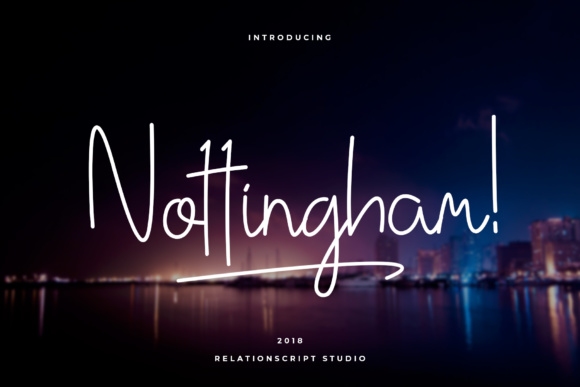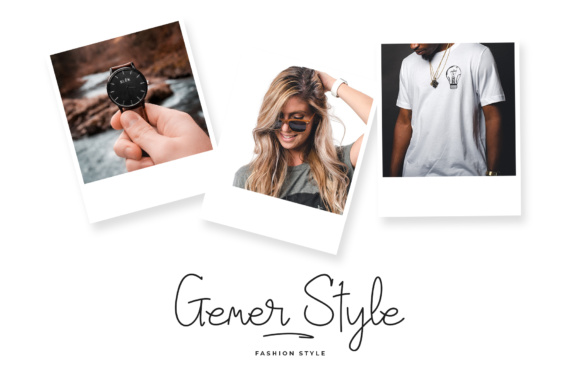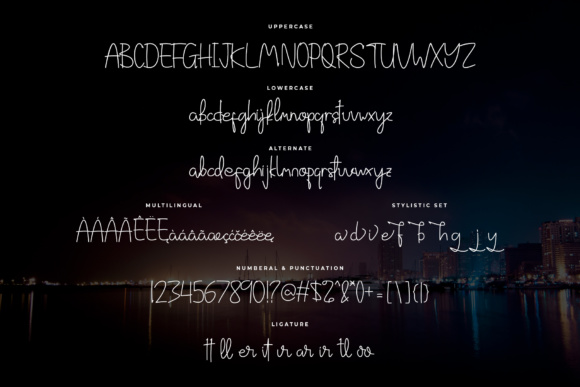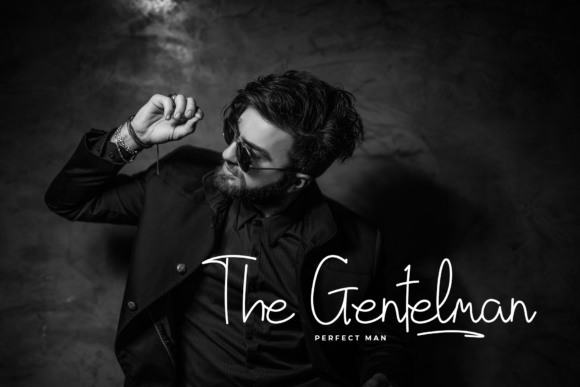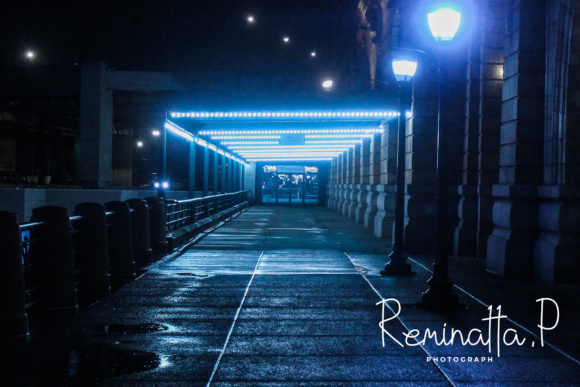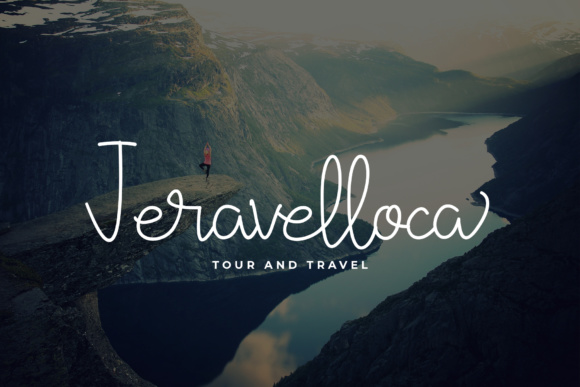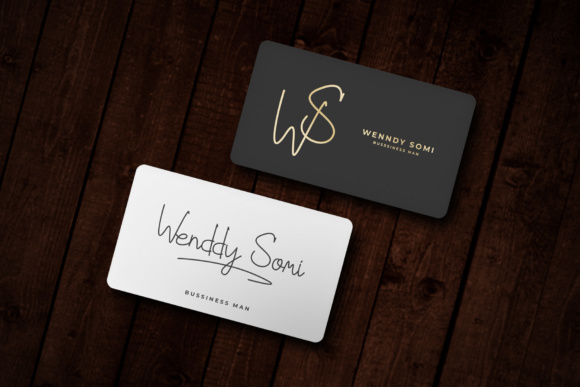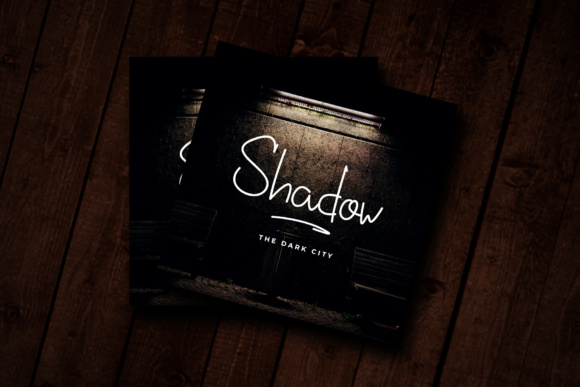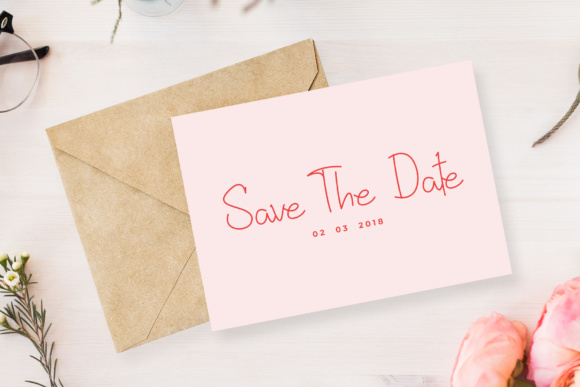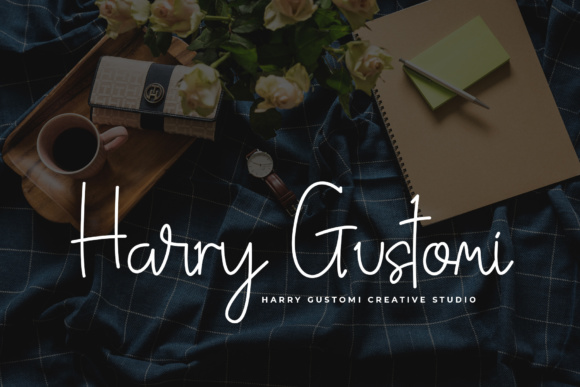
Nottingham Script Font
About Nottingham Script Font
Nottingham can be used perfectly for various purposes such as editorial design, branding, art quote, book / cover title, poster, apparel design, product packaging, label, special events or anything that need hand-drawn taste.